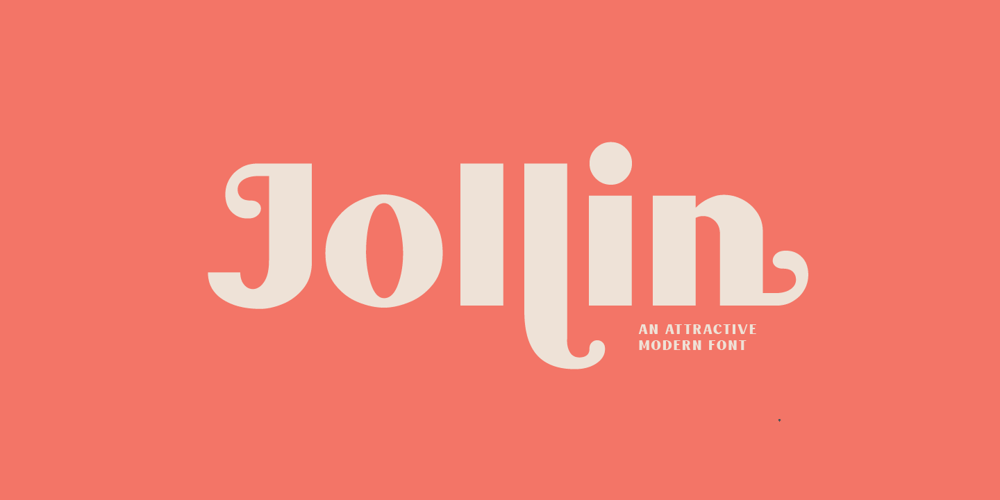
Jollin
Jollin font
Jollin Font Family was designed by Kadek Mahardika and published by Creativemedialab. Jollin contains 1 styles and family package options. Jollin – A Pretty Bold, attractive and simple Display font! Available in regular and italic version, Jollin has tons of alternates that you can use to create a simple but pretty letters. Jollin is perfect for heading, logo creation, advertisements, labels, business card, branding and more! To access alternate: In Adobe Photoshop go to Window – glyphs In Adobe Illustrator go to Type – glyphs